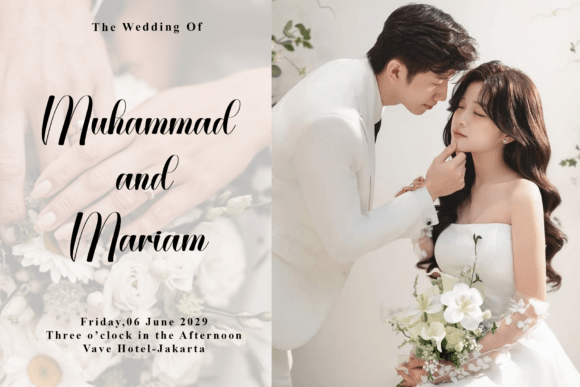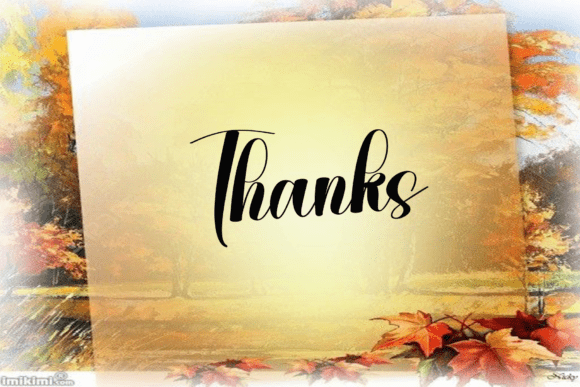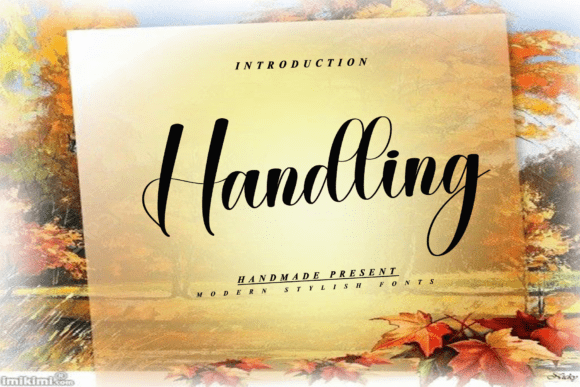
Introducing Handling Font: Elevate Your Designs with Elegance and Sophistication
Are you on the hunt for a font that exudes charm, sophistication, and a touch of romance? Look no further than Handling Font, a beautifully flowing script font that is sure to elevate your designs to new heights. With its smooth curves and handwritten feel, Handling Font is the perfect choice for designers and crafters looking to add a touch of elegance to their work.
The Characteristics of Handling Font
Handling Font is a script font that boasts a range of characteristics that make it truly unique. Its smooth, flowing curves give it a sense of movement and fluidity, while its handwritten feel adds a touch of warmth and personality. The font’s elegant lines and refined letterforms make it perfect for a range of design applications, from wedding invitations and personal branding to elegant packaging and romantic quotes.
Perfect for Wedding Invitations and Personal Branding
Handling Font is a match made in heaven for wedding invitations and personal branding. Its romantic, elegant feel makes it perfect for couples looking to add a touch of sophistication to their wedding stationery, while its unique character ensures that it will stand out from the crowd. For personal branding, Handling Font offers a range of possibilities, from logo design to business cards and letterheads. Its elegant, refined lines make it perfect for businesses looking to convey a sense of luxury and sophistication.
Elegant Packaging and Romantic Quotes
Handling Font is also a great choice for elegant packaging and romantic quotes. Its smooth curves and flowing lines make it perfect for adding a touch of elegance to product packaging, while its romantic feel makes it ideal for sharing sweet nothings on social media. Whether you’re a designer looking to create a bespoke packaging solution or a crafty individual looking to add a touch of personality to your gifts, Handling Font is a great choice.
Tips for Using Handling Font in Your Designs
So, how can you get the most out of Handling Font in your designs? Here are a few tips to get you started:
• Pair it with a sans-serif font: Handling Font’s elegant lines and refined letterforms make it perfect for pairing with a sans-serif font. This will create a beautiful contrast that adds visual interest to your design.
• Use it for headings and titles: Handling Font’s smooth curves and flowing lines make it perfect for headings and titles. Use it to add a touch of elegance to your design and draw attention to key information.
• Experiment with colors and textures: Handling Font’s elegant feel makes it perfect for experimenting with different colors and textures. Try pairing it with a range of colors and textures to add depth and visual interest to your design.
Why Choose Handling Font?
So, why choose Handling Font over other script fonts on the market? Here are just a few reasons:
• Unique character: Handling Font’s smooth curves and flowing lines give it a unique character that sets it apart from other script fonts.
• Elegant feel: Handling Font’s elegant lines and refined letterforms make it perfect for designs that require a touch of sophistication.
• Versatile: Handling Font is a versatile font that can be used for a range of design applications, from wedding invitations and personal branding to elegant packaging and romantic quotes.
Font Name Handling Font
Author pinkmeca
In conclusion, Handling Font is a beautifully flowing script font that radiates charm and sophistication. With its smooth curves and handwritten feel, it’s perfect for designers and crafters looking to add a touch of elegance to their work. Whether you’re creating wedding invitations, personal branding materials, elegant packaging, or romantic quotes, Handling Font is a great choice. So why not give it a try and see how it can elevate your designs to new heights?